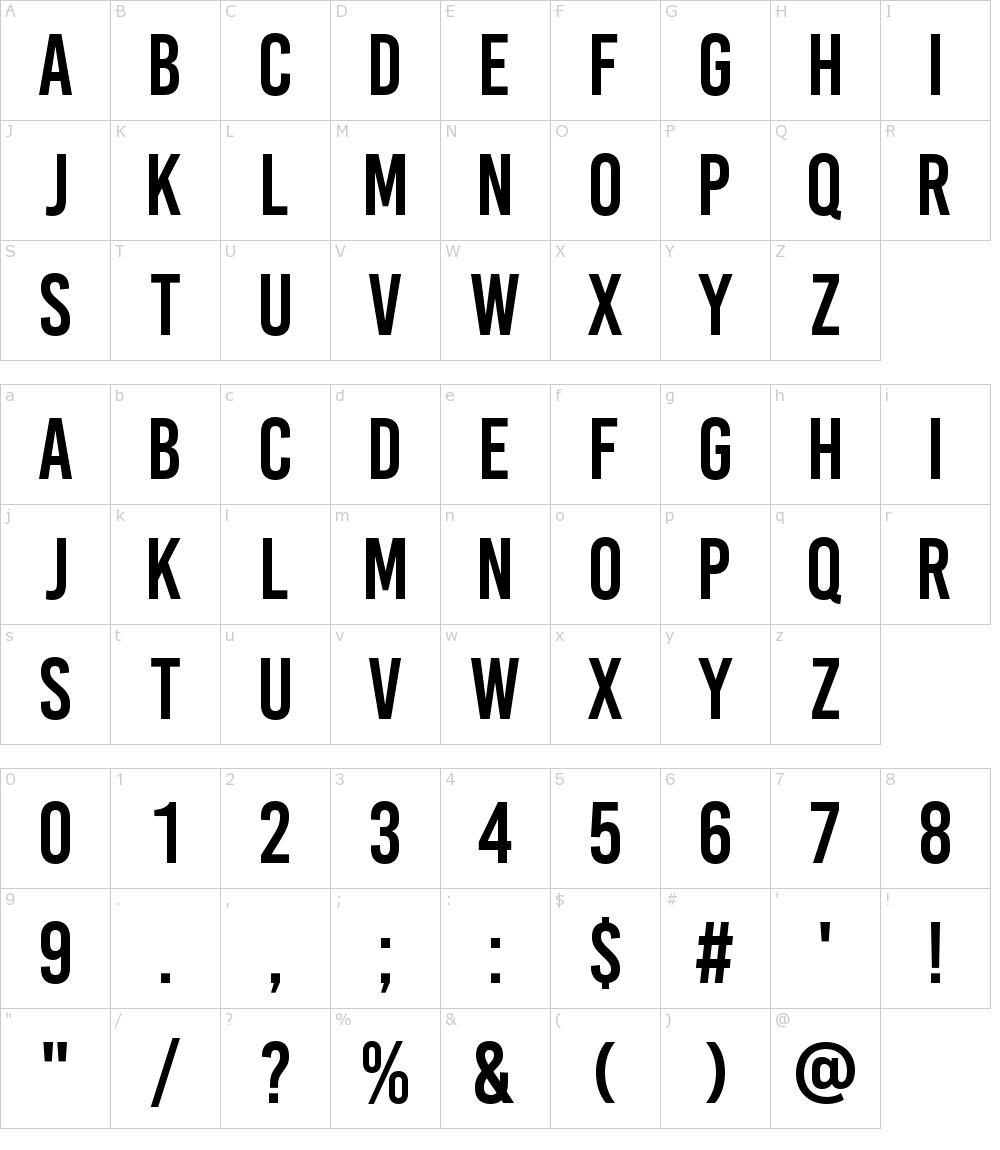
List Of Bebaskai Font Ideas. Web bebas kai font free download. Web bebas kai sans serif font is a bold type of font that has a different character from other bold fonts, bebas kai has a strong but soft character, with an.
It's based on the original bebas. The font is free for both personel and commercial usages. It’s a free display typeface that has created with bold strokes.
Web Download Bebas Kai Font · Free For Commercial Use · Updated Original Bebas Which Was Designed In 2004.
When you need to double. We have another bebas edition called bebas neue. Web bebaskai font is a basic sans serif typeface that has an awesome fine texture.
Web Bebas Kai Is One Of Derivative Works Based Upon Bebas (2005) From 2018, Bebas Kai Has Become Open Sourced Font.
Because They Release It For The First Time And Ryoichi Tsunekawa Is Known As The Primary Designer Of It.